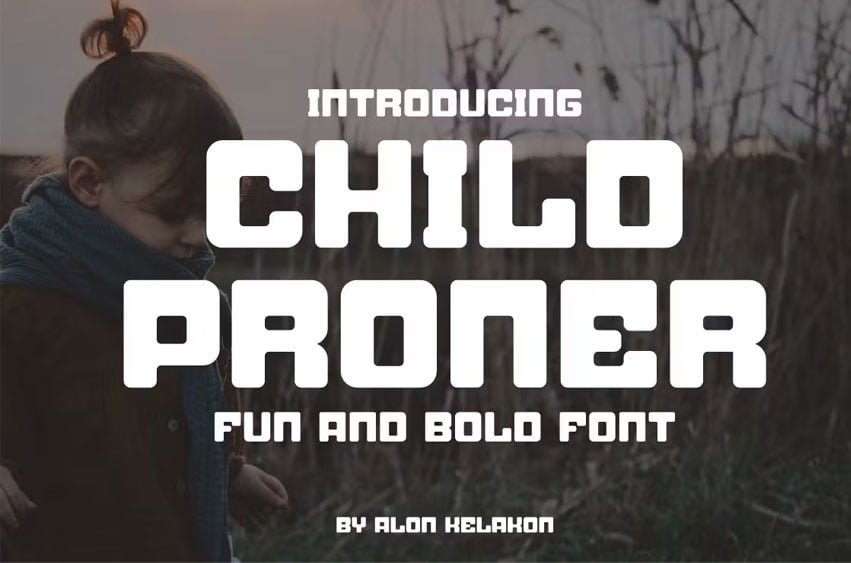
Child Proner Font is unique. Ready to use for your design like labeling, movie scenes, posters, movie titles, gigs, album covers, logos, and much more.